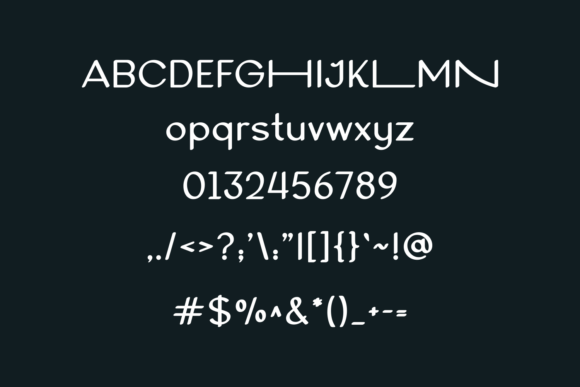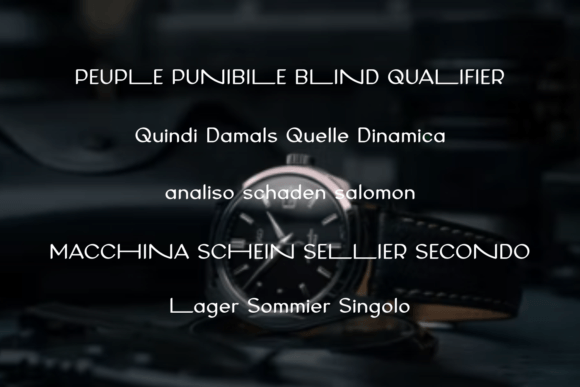
Discover the Power of Gline Font
You know that feeling when a single design element brings your entire project to life? For designers, it’s a moment of pure joy – the ‘aha’ moment when everything clicks into place. Whether it’s a bold new color palette or a perfectly curated typography, these moments can be the difference between a good design and a great one.
Enter the Gline Font, a cool and unique sans serif font that’s poised to elevate your creations to new heights. With its versatility and sleek design, this font is the perfect addition to any designer’s toolkit. Whether you’re crafting a logo, creating a website, or designing a brochure, the Gline Font is sure to bring a touch of sophistication and style to your work.
Gline Font Key Features
- Unique Characteristics: Gline Font features a distinctive, modern sans-serif design with clean lines and a geometric feel, making it ideal for corporate and professional applications.
- Kerning and Ligatures: Gline Font includes advanced kerning and ligature features, ensuring that text is displayed with precision and elegance, even in complex layouts.
Gline Font Review
Gline font is a clean, modern sans-serif font that I’ve been experimenting with for a project. Here’s my honest review of its strengths and weaknesses.
- ✨ Clear readability: Gline font has excellent legibility, making it perfect for body text and headings.
- ✨ Versatility: It comes in a range of weights and styles, allowing for endless combinations for different design applications.
- ✨ Modern feel: Gline font exudes a sleek, contemporary vibe that’s perfect for modern design projects.
- ⚠️ Limited script support: Gline font doesn’t have extensive script support, which might limit its use in projects requiring cursive or handwritten text.
- ⚠️ Limited language support: Gline font may not be optimized for languages that require complex character sets or diacritical marks.
Overall, Gline font is a solid choice for designers seeking a modern, clean sans-serif font. While it may have some limitations, its clear readability, versatility, and modern feel make it a great addition to any design project.
Getting the Most Out of Gline Font
Alternatives to Gline Font
Montserrat is a sans-serif font that is perfect for titles and headings due to its clean and modern design. It is a popular choice among designers for its versatility and wide range of applications. Montserrat is a great alternative to Gline Font as it offers a similar modern feel, but with a more geometric and structured look.
Comparison to Gline Font: Montserrat is more geometric and structured, while Gline Font has a more rounded and friendly feel.
Open Sans is a clean and modern sans-serif font that is perfect for body text and titles. It is highly legible and works well in both print and digital applications. Open Sans is a great alternative to Gline Font as it offers a similar clean and modern feel, but with a more neutral and straightforward design.
Comparison to Gline Font: Open Sans is more neutral and straightforward, while Gline Font has a more playful and creative feel.